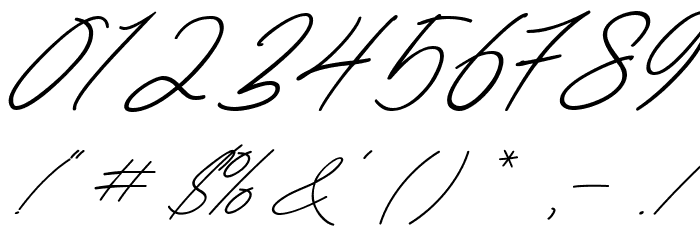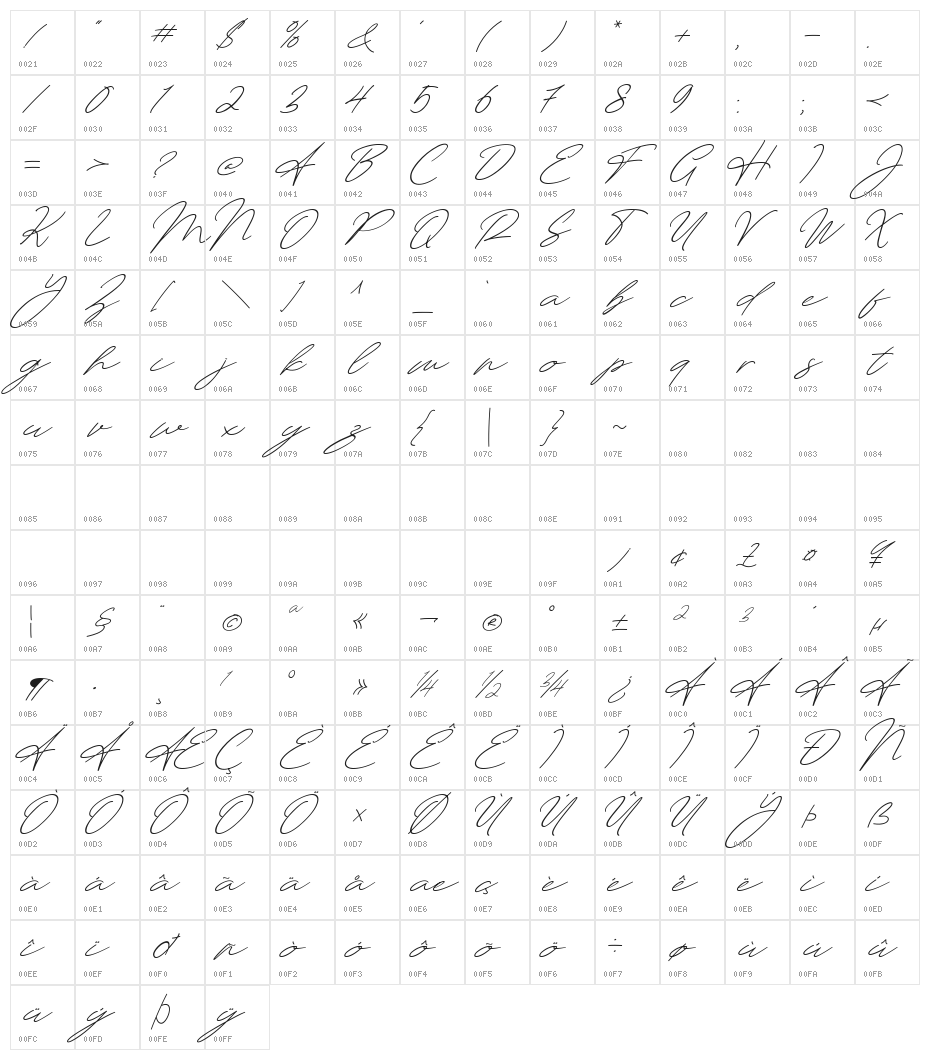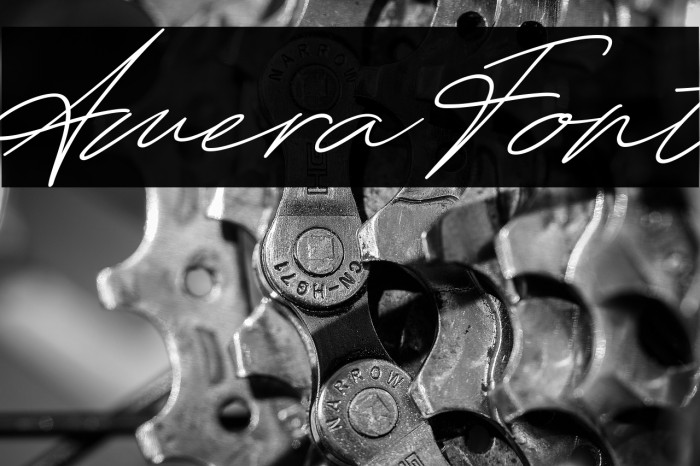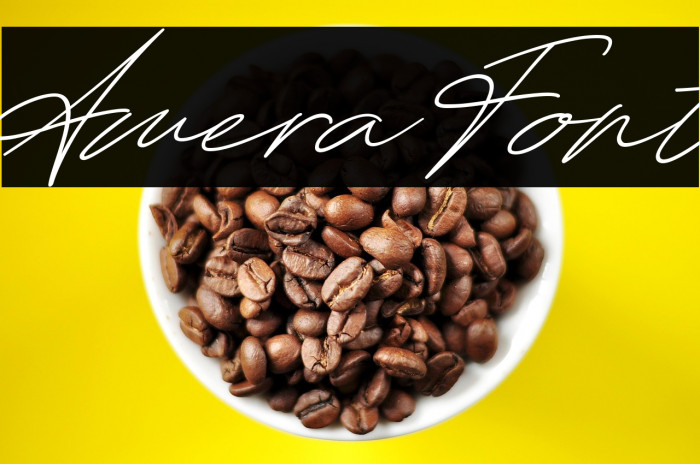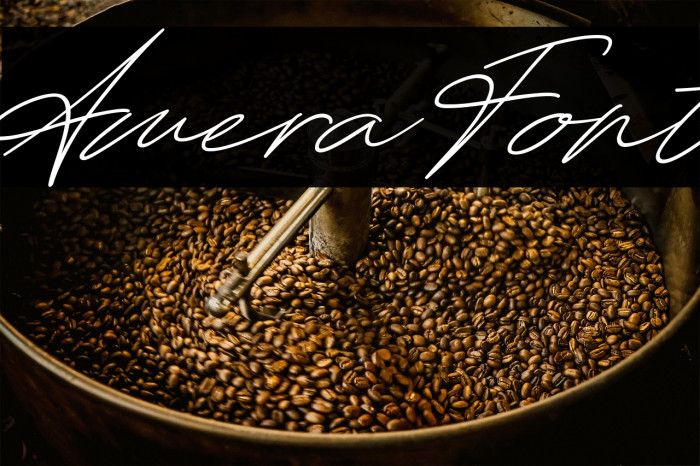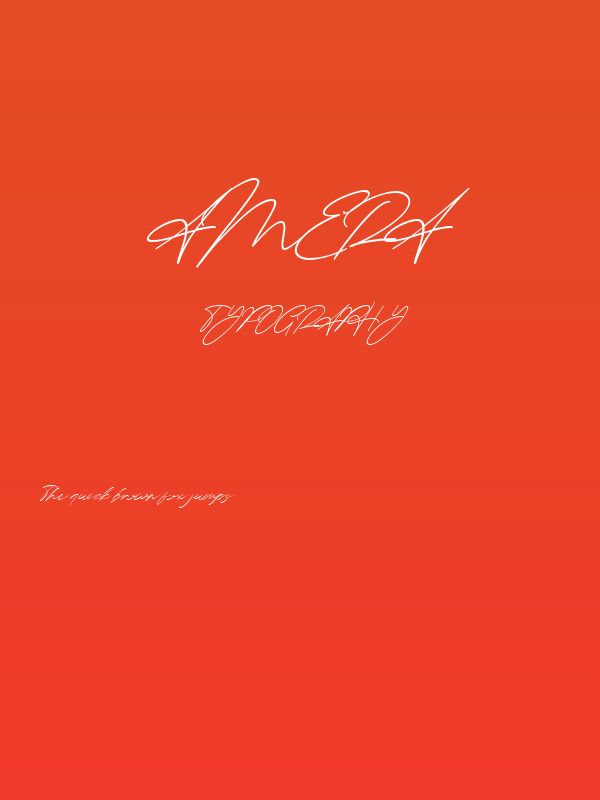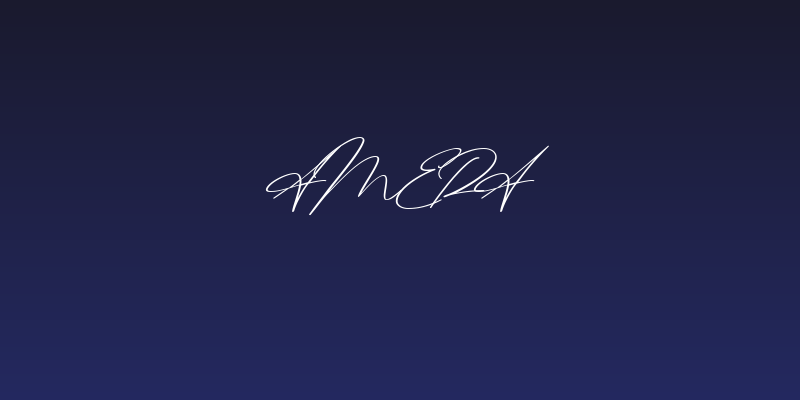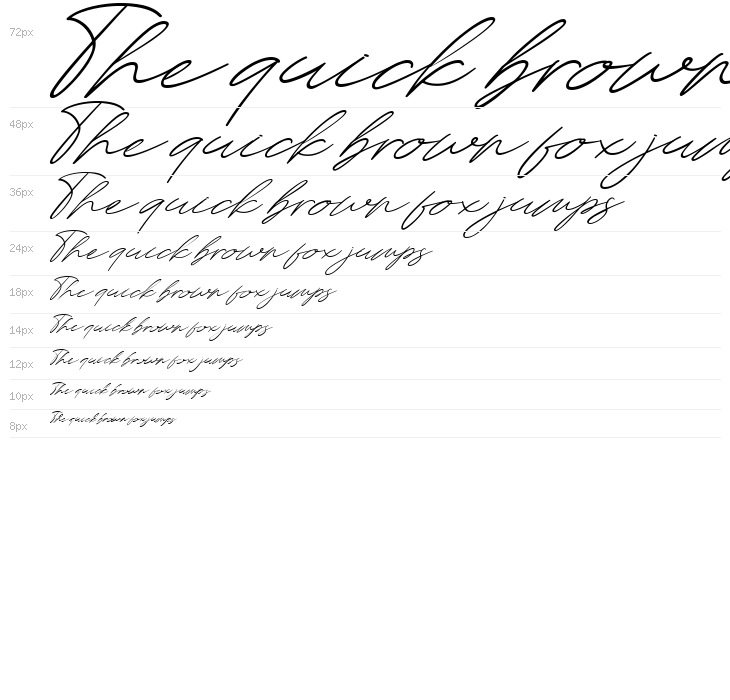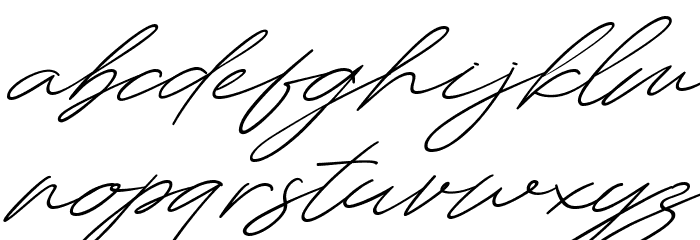
Amera Font
Amera Description
This elegant script font features fluid, cursive strokes that mimic the natural flow of handwriting. The letters are connected, creating a seamless and sophisticated appearance. The uppercase characters are slightly larger and more ornate, while the lowercase letters maintain a consistent and graceful form. The numerals are styled to match the cursive nature of the alphabet, ensuring a cohesive look across all characters. Special characters are also included, maintaining the same flowing style. This font exudes a sense of elegance and refinement, making it suitable for formal and creative applications.
Overall StyleElegant